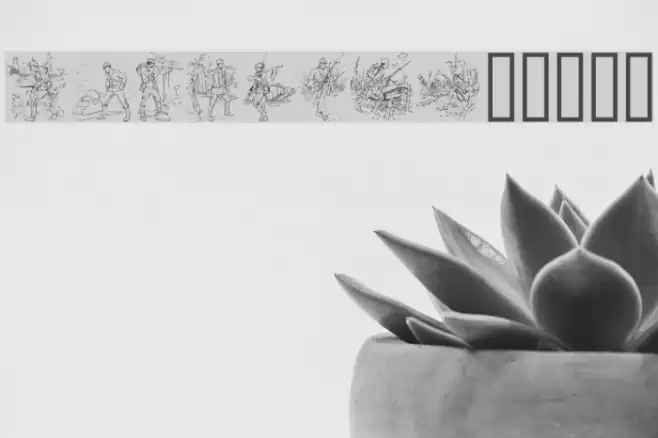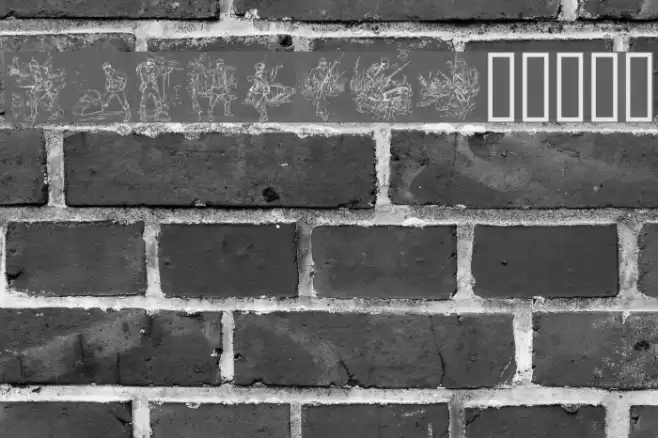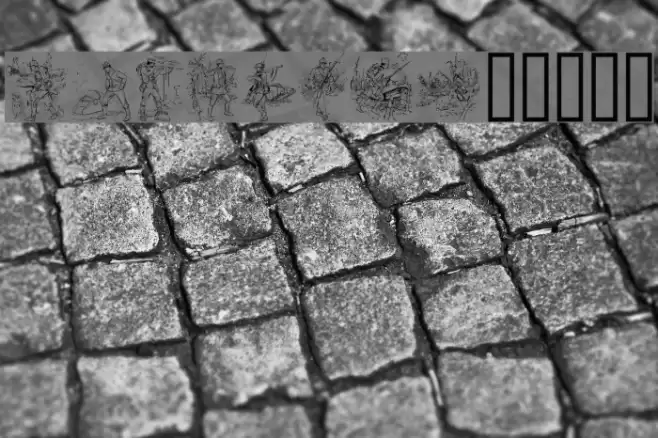
WW1 B Font
WW1 B Description
A highly decorative and illustrative font featuring detailed line art drawings of World War I soldiers and scenes, replacing standard alphanumeric characters with intricate historical illustrations.
Illustrative font with WWI-themed line art for each character from Dingbats fonts.
- Proposed Projects: Historical posters, educational materials, themed event invitations, book covers, museum displays.
- Overall Style: Decorative, Historical, Illustrative
- Use Case: Display, Posters, Themed Graphics